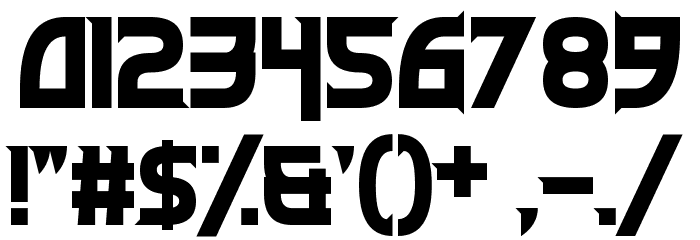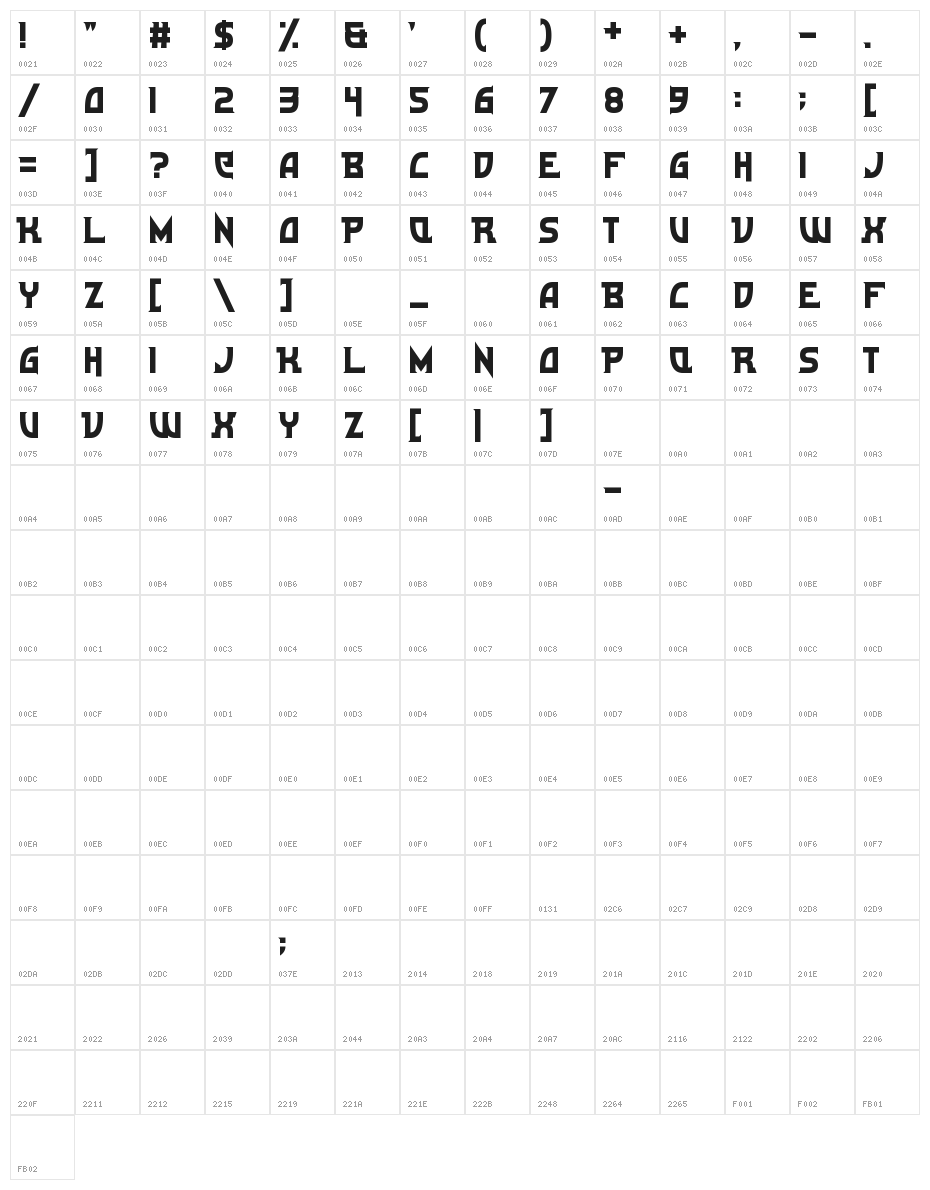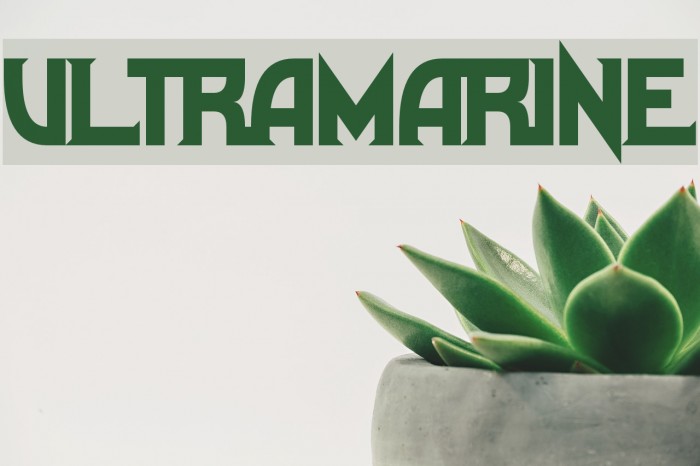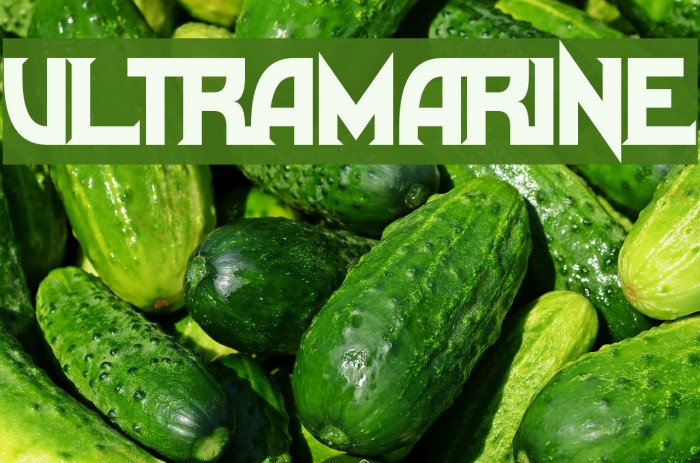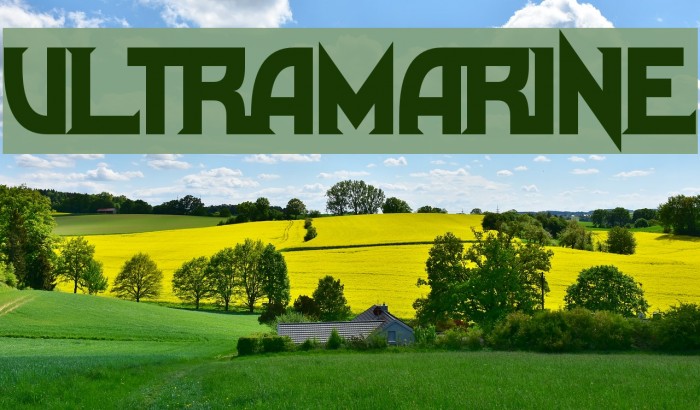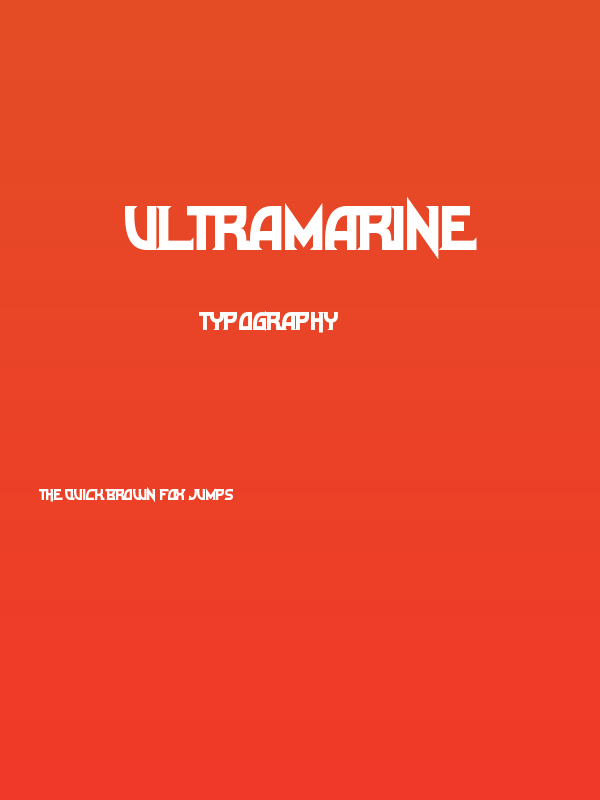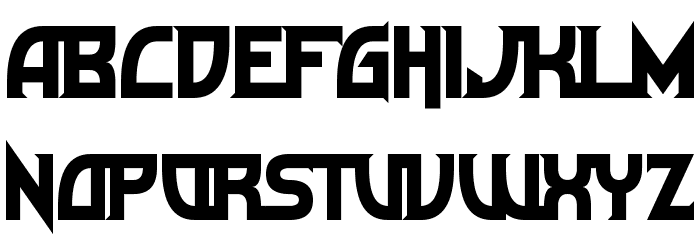
Ultramarine Font
Ultramarine Description
This font exhibits a bold and geometric style with a futuristic flair. The characters are constructed with sharp angles and clean lines, giving them a distinct and modern appearance. The uppercase letters are particularly striking, featuring unique cutouts and angular shapes that create a sense of movement and dynamism. The lowercase letters maintain the same geometric integrity, ensuring consistency across the typeface. Numbers and special characters are designed to complement the overall style, with similar angular features and bold strokes. This font's design is both eye-catching and versatile, making it suitable for a variety of creative applications.
| Proposed Projects | Ideal for branding, posters, album covers, and any project requiring a modern and bold aesthetic. |